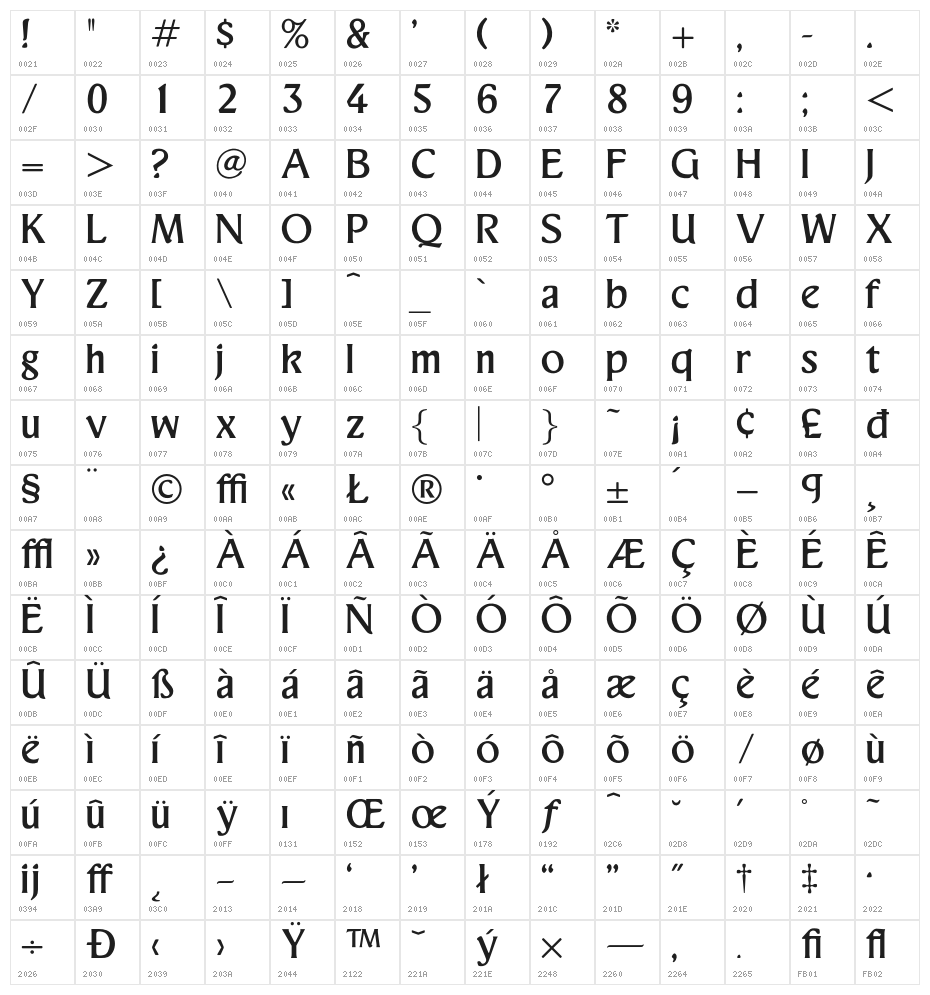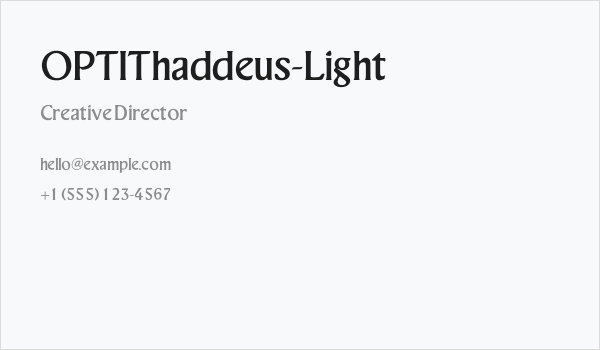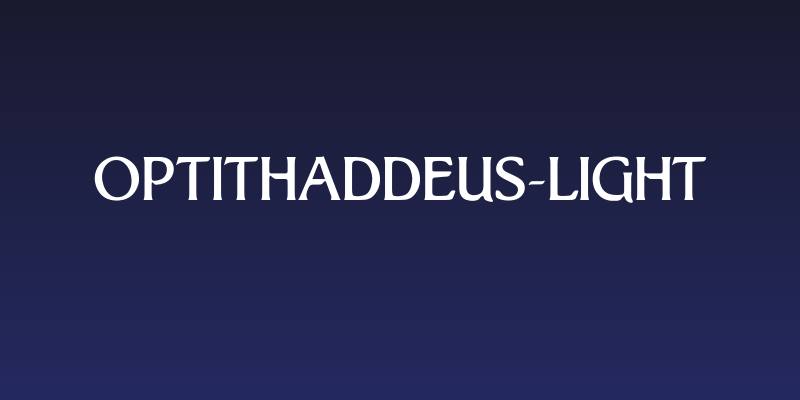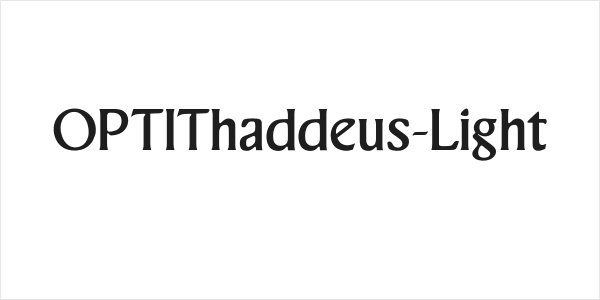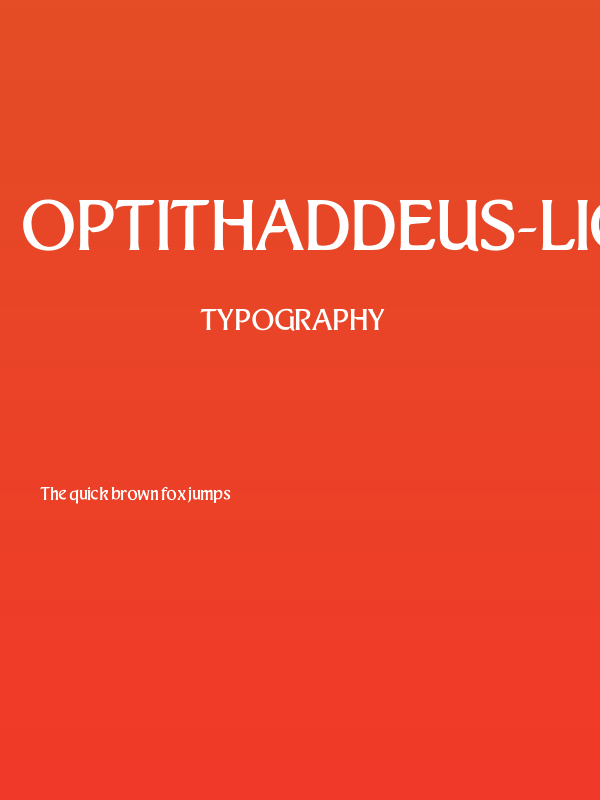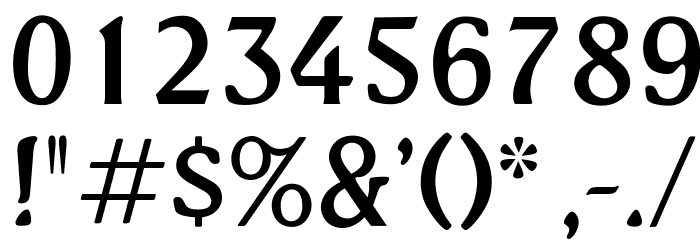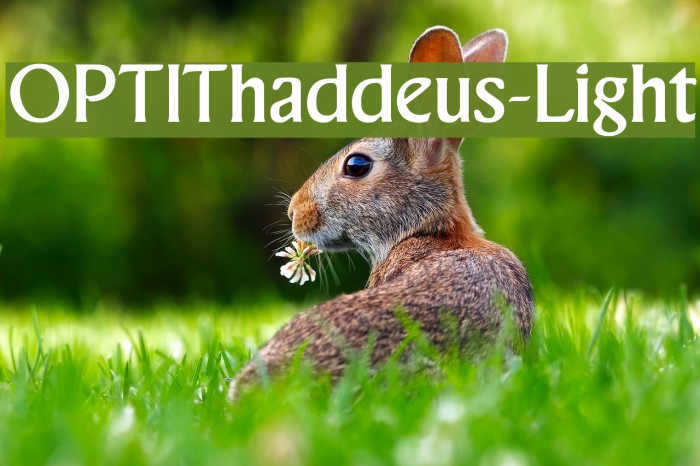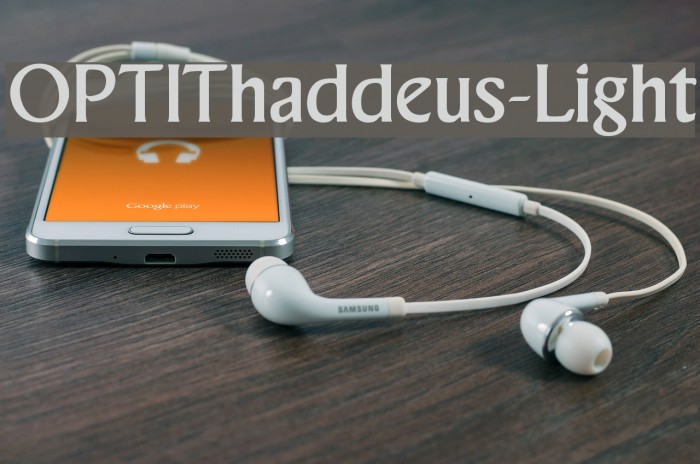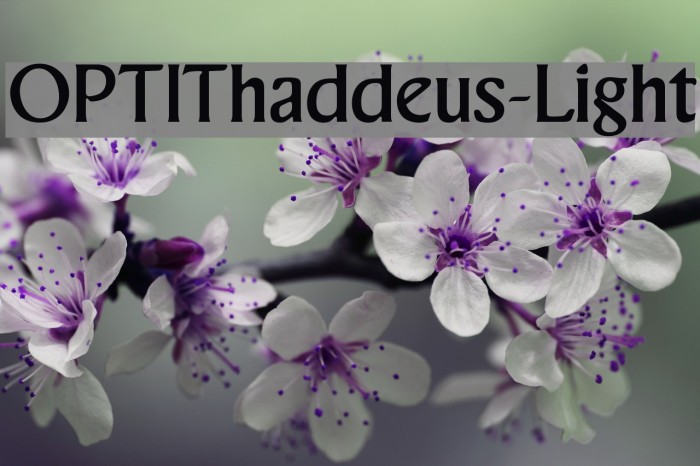
OPTIThaddeus-Light Font
OPTIThaddeus-Light Description
This font features a classic serif style with a touch of elegance and sophistication. The characters are well-defined with distinct serifs that add a traditional feel. The uppercase letters are bold and commanding, while the lowercase letters maintain a consistent style with slightly rounded edges. The numerals are clear and easy to read, making them suitable for various applications. Special characters are included, adding versatility to the font. The overall design is balanced, with a medium contrast between thick and thin strokes, providing a harmonious appearance.
| Proposed Projects | Ideal for book covers, editorial design, formal invitations, and branding projects. |